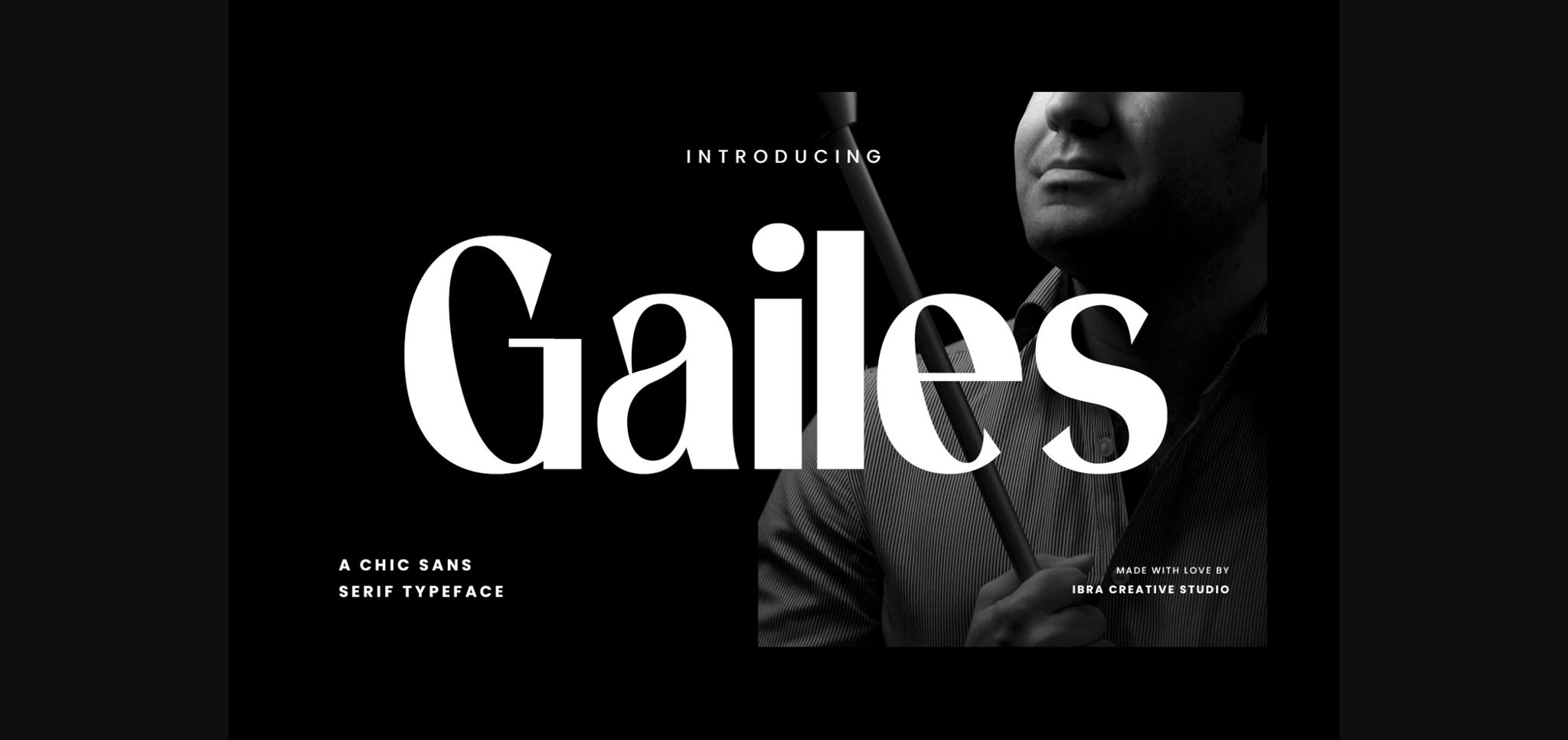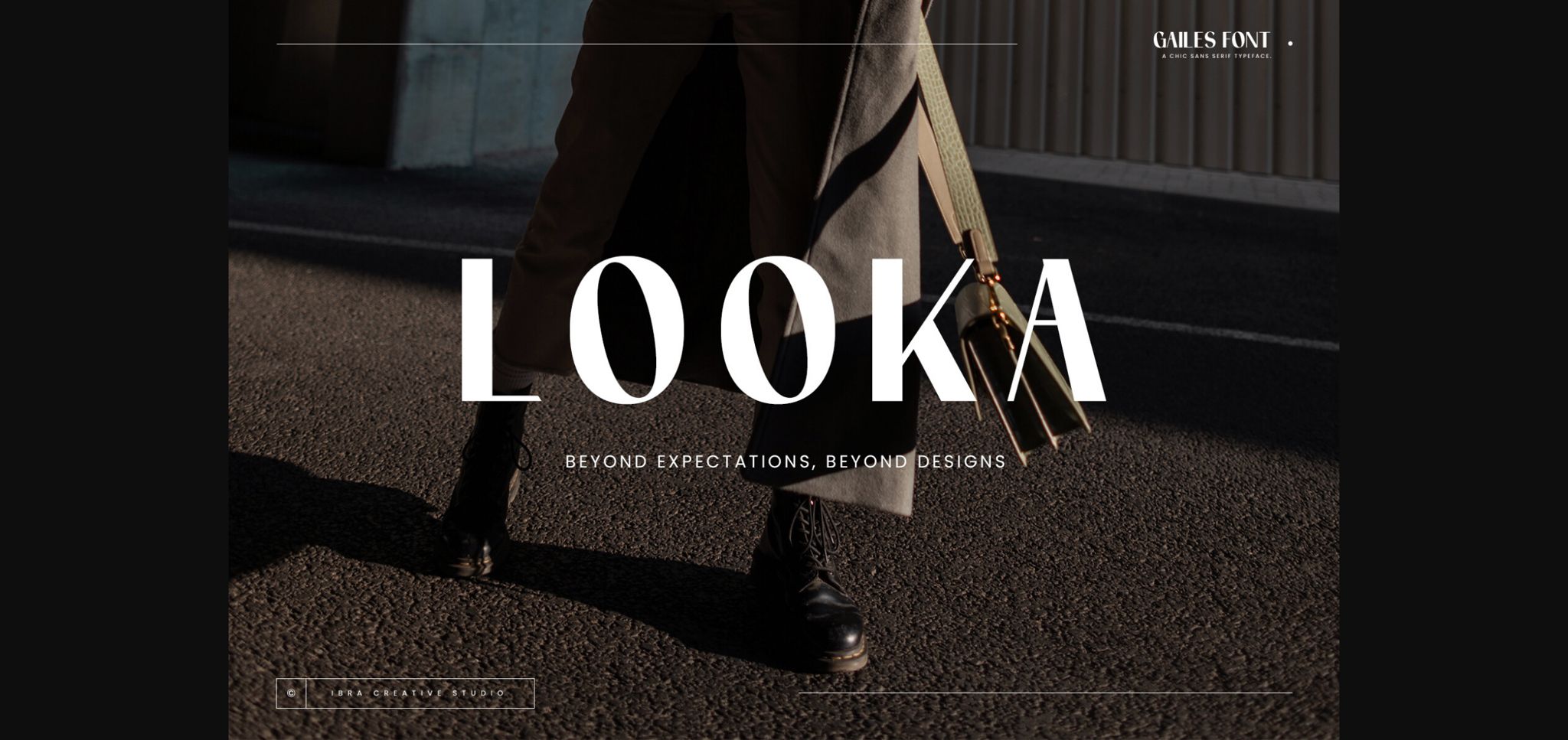
About Gailes Font
Gailes, a chic sans-serif typeface, effortlessly blends modern sophistication with a touch of timeless elegance. Its clean lines and well-balanced proportions create a sleek and contemporary aesthetic, making it a versatile choice for a wide range of design applications. Whether used in editorial layouts, branding projects, or digital interfaces, Gailes adds a refined and polished look to any composition. The font’s subtle details and stylish simplicity convey a sense of chic minimalism, allowing designers to achieve a sophisticated visual impact.